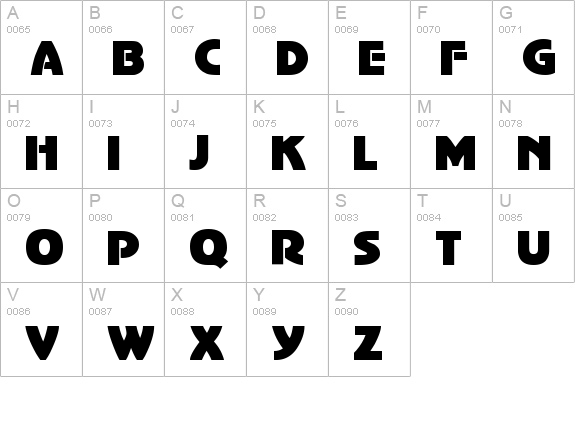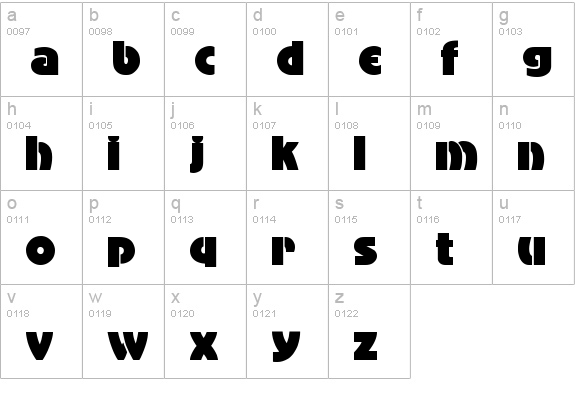
Oxxo font is a modern and elegant typeface that exudes sophistication and versatility. With its clean lines and stylish curves, Oxxo is perfect for a wide range of design projects, from branding to editorial design. This font features a unique blend of classic and contemporary elements, making it a truly standout choice for any creative endeavor. Best of all, Oxxo font is available for free download at FontsMarket.com. Whether you're a professional designer or a hobbyist looking to add a touch of elegance to your projects, Oxxo font offers endless possibilities for creating stunning visuals. Don't miss out on the opportunity to enhance your designs with this exquisite font – download Oxxo today and start creating beautiful typography that truly stands out.